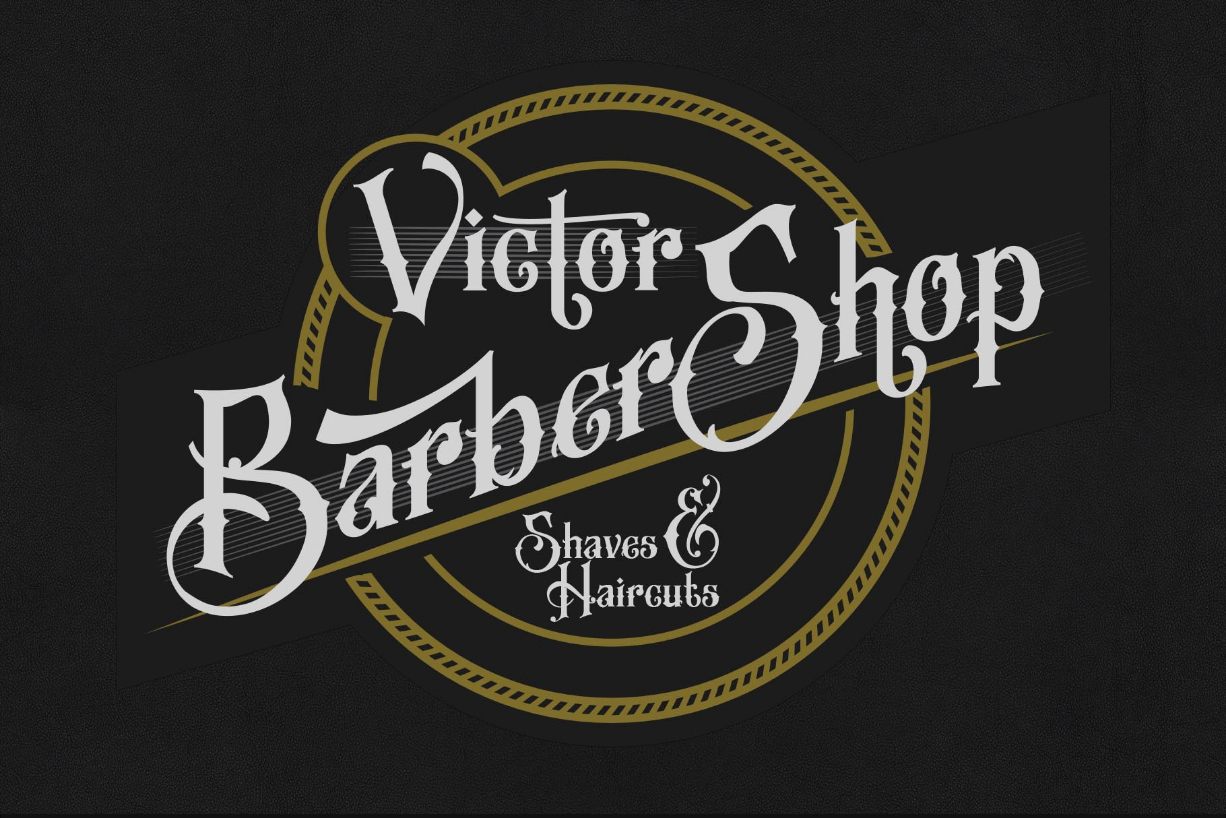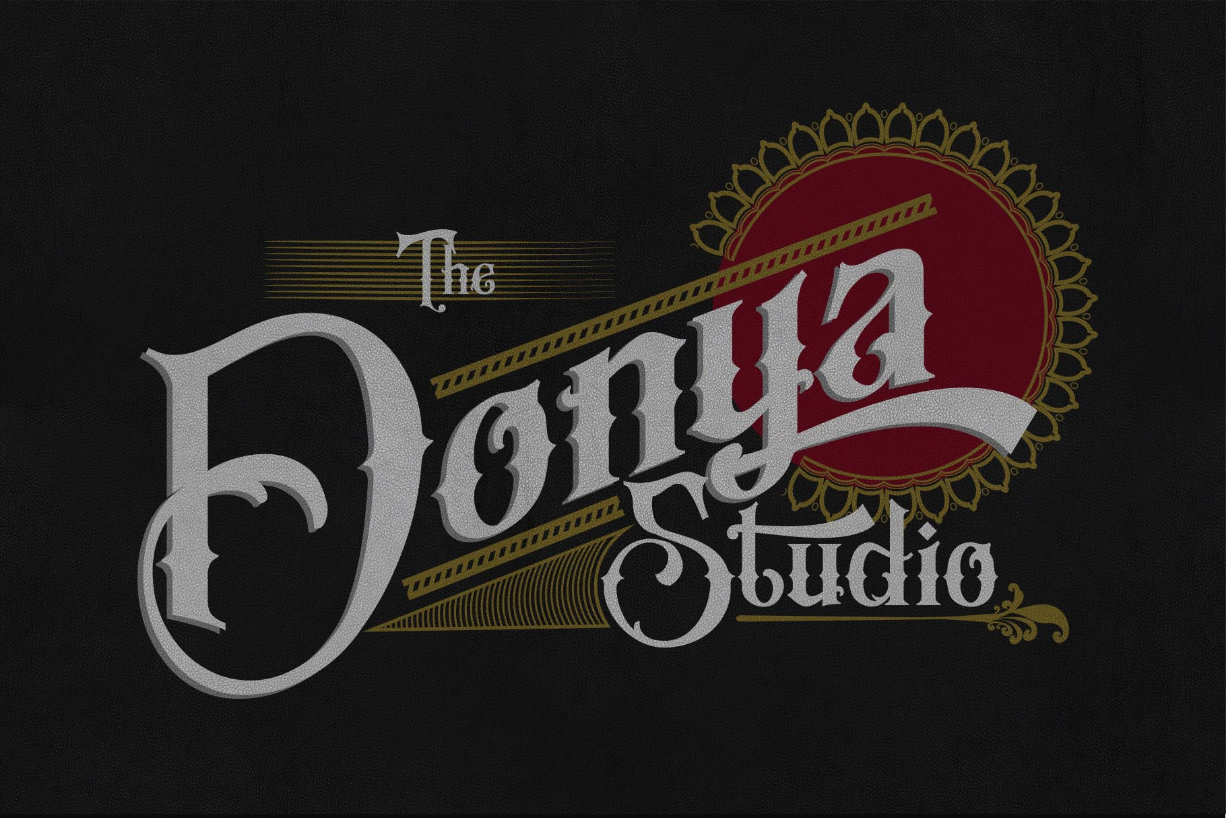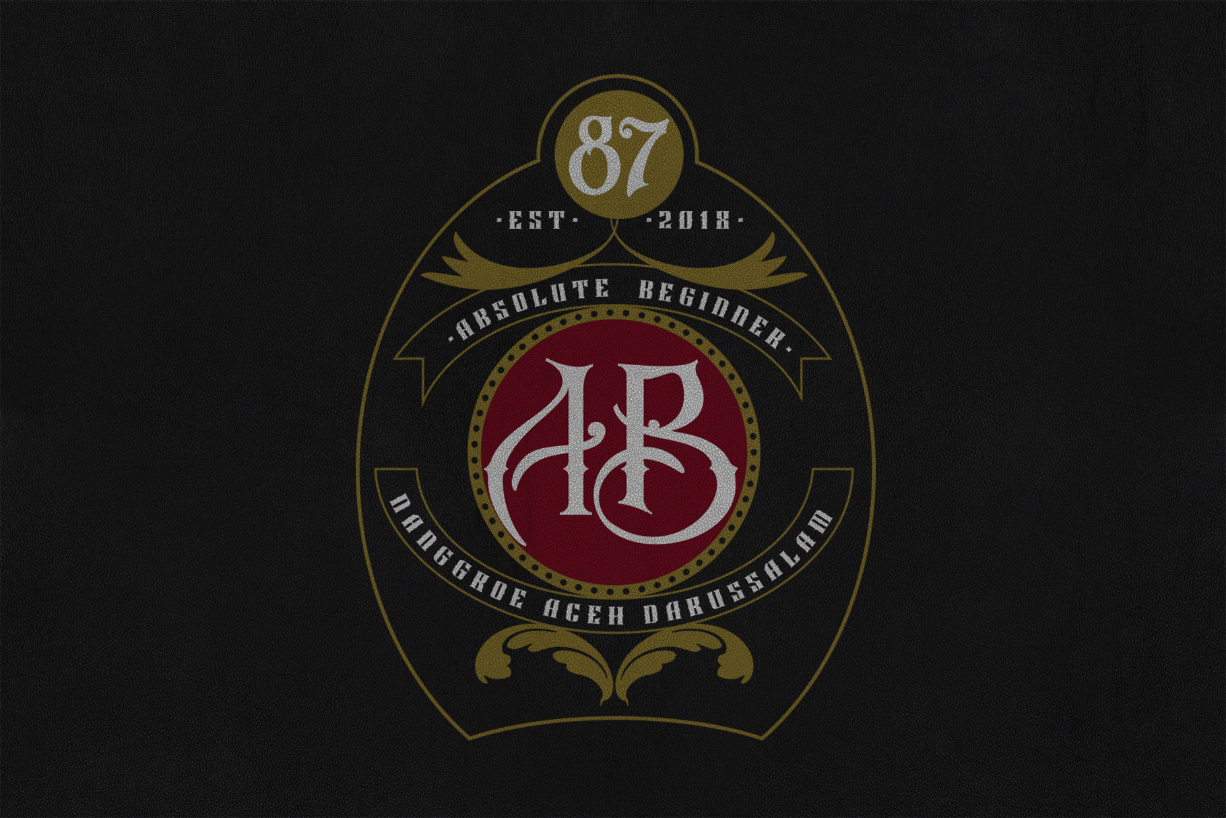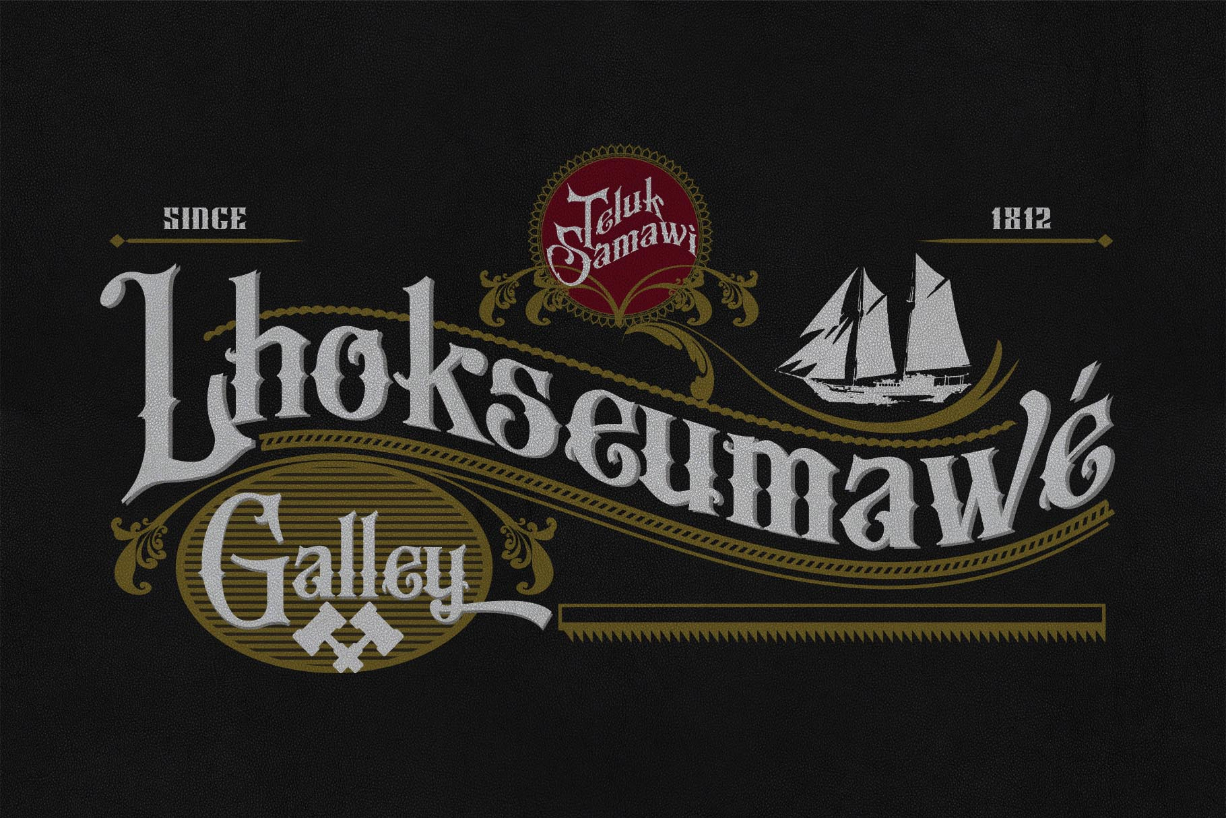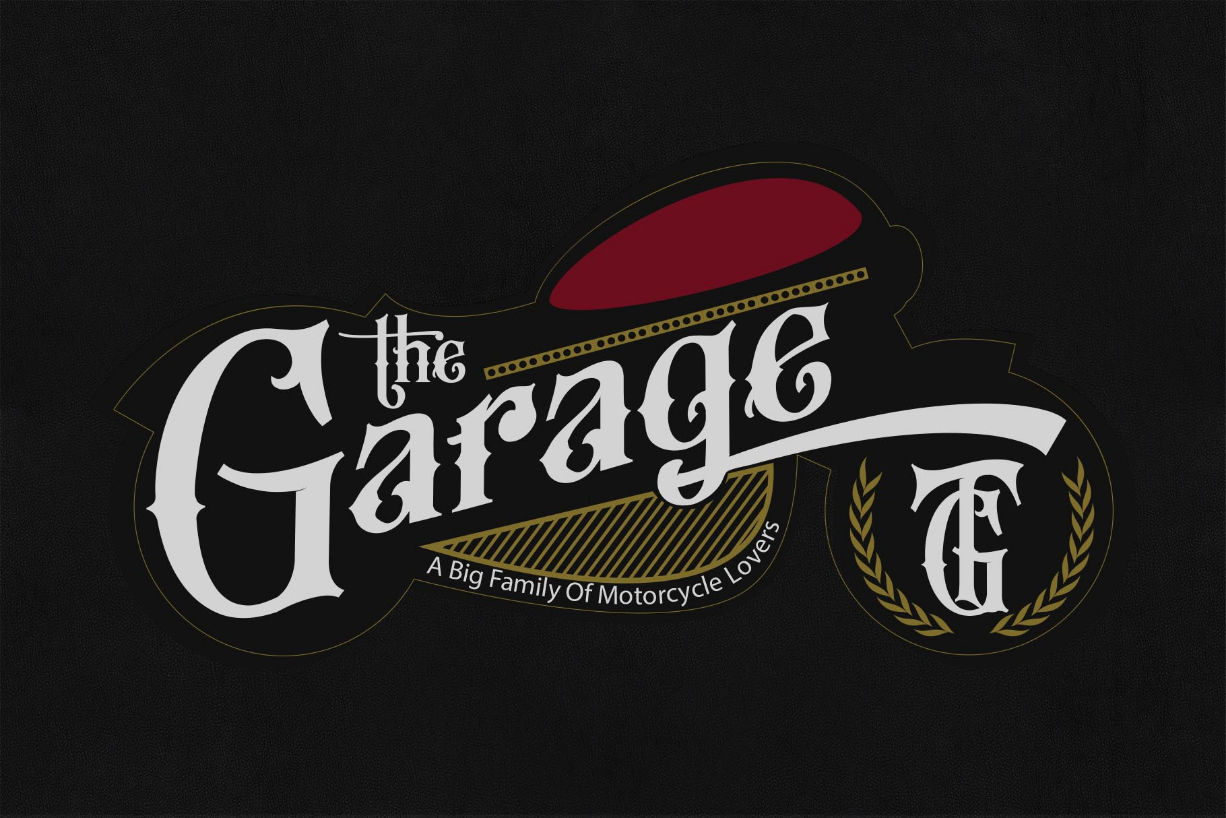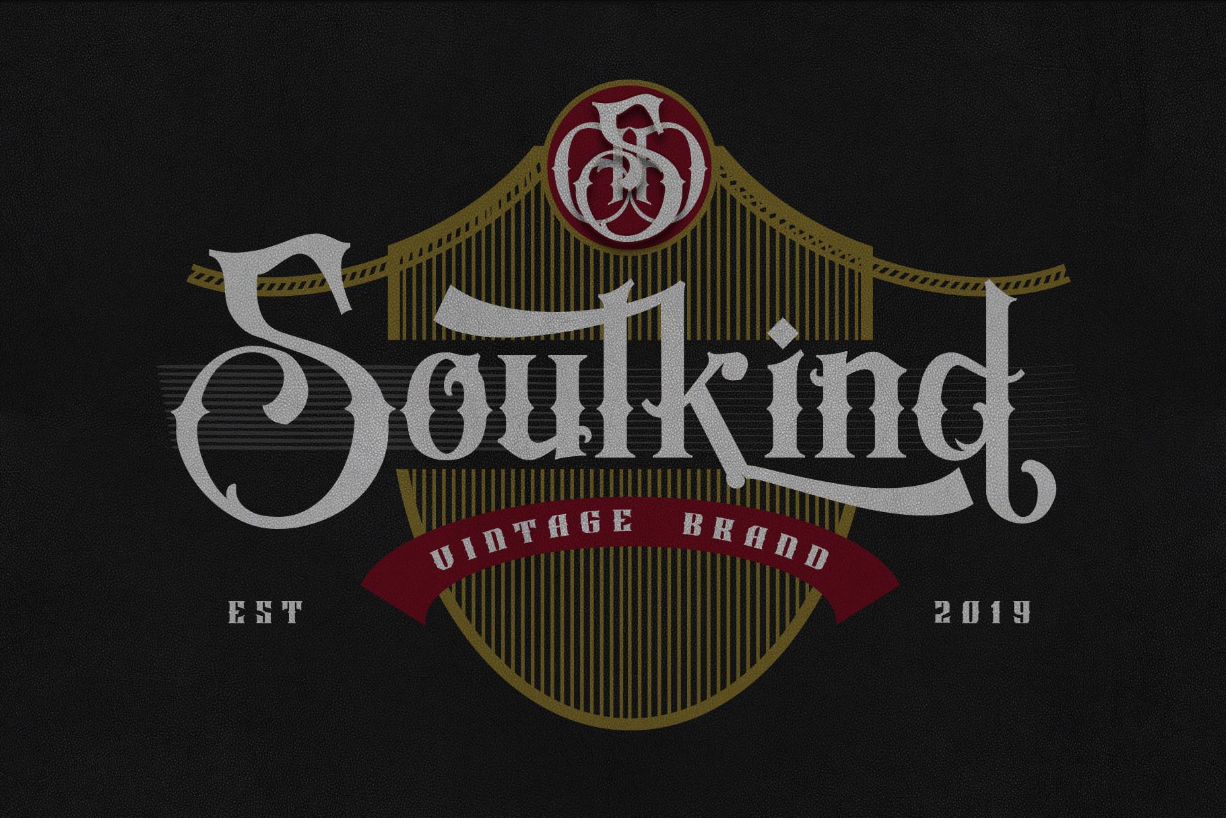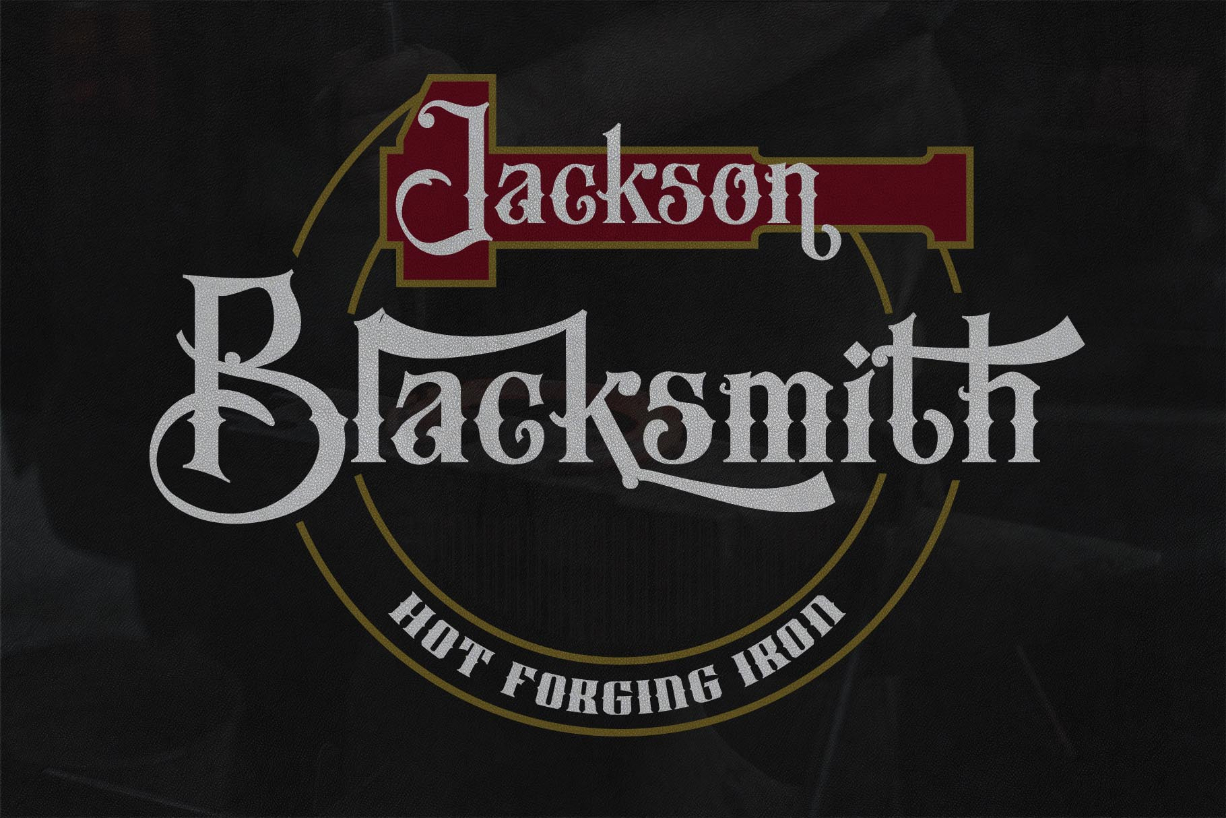
Justile Font
About Justile Font
Justile is a unique blackletter font. It is inspired by Natural Vintage Ornament and has a Victoria style. It is perfect for tattoos, branding, logos and much more!